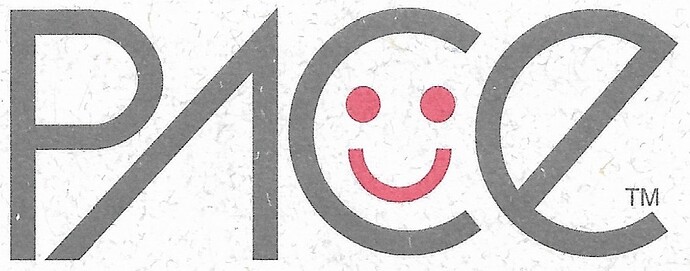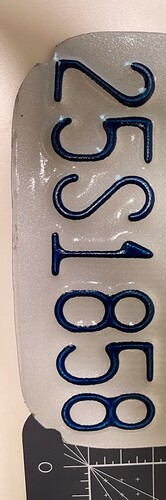
I have searched hi and low without success trying to find the attached font. The key I believe is the slanted “A” without the horizontal line. Can you tell me if this font exists or if it was a custom font created years ago?
Looks like a custom made logo-font.
Hoping someone can help me identify a cleaner version of the font below and what font is the second image.